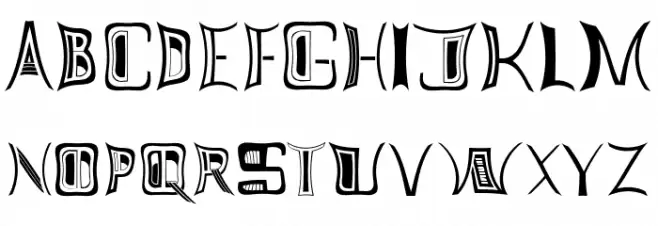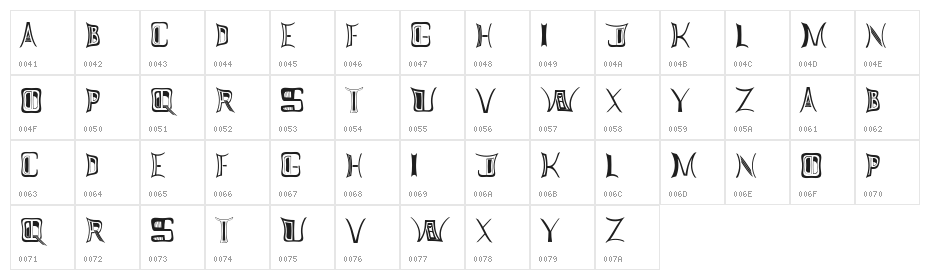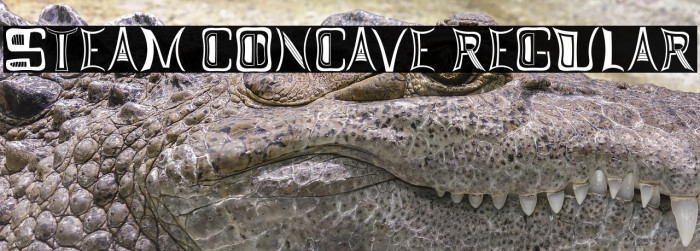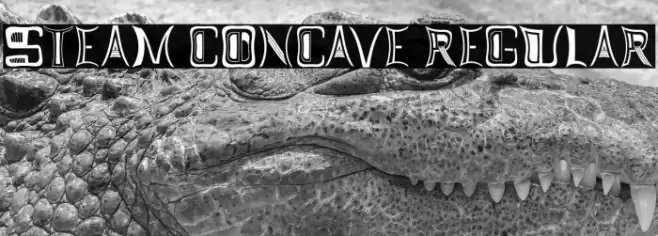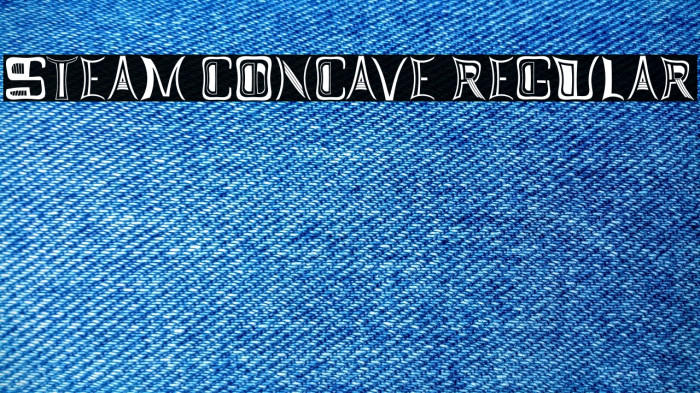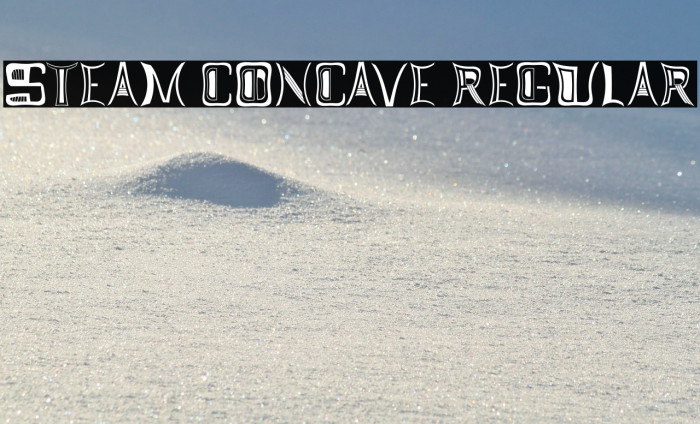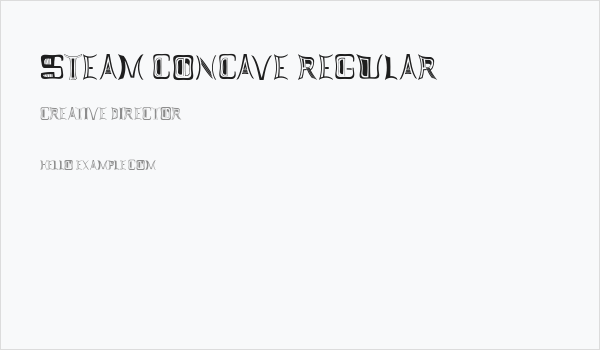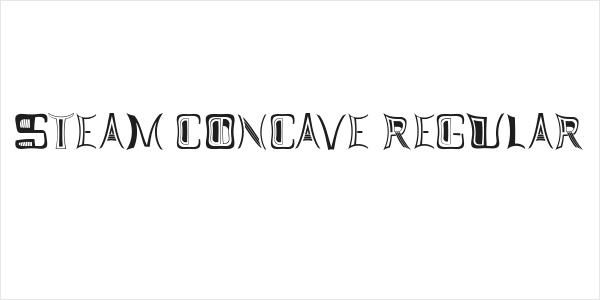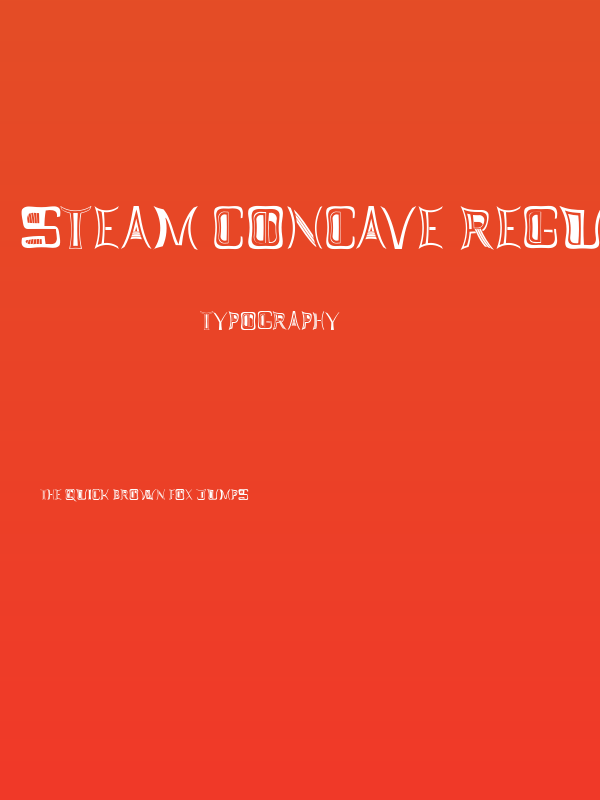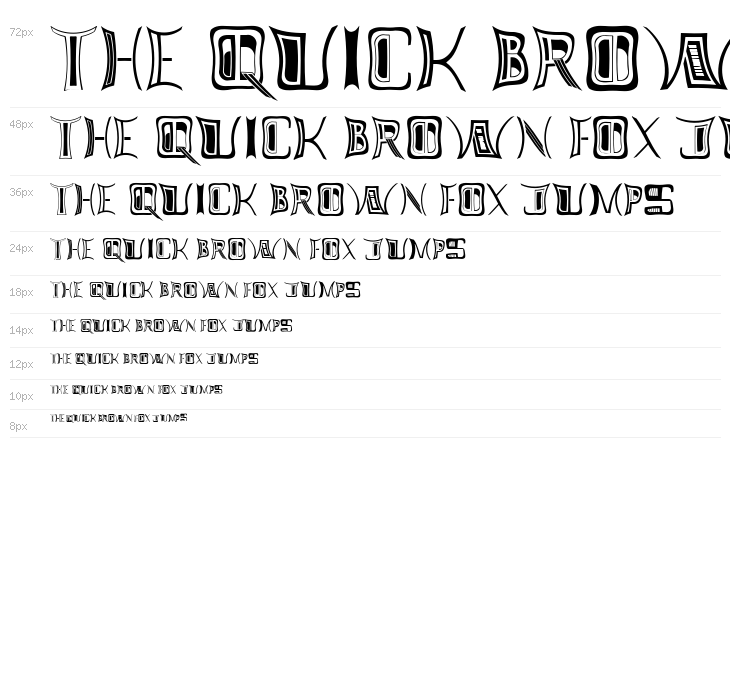
Steam Concave Regular Font
Steam Concave Regular Description
This font features a unique and artistic design with a concave style that gives each character a dynamic and eye-catching appearance. The uppercase letters are bold and have a distinct curvature that creates a sense of movement and fluidity. The lowercase letters maintain this style, offering a cohesive look throughout the typeface. The numbers and special characters are crafted with the same attention to detail, ensuring consistency. The font's playful yet sophisticated design makes it ideal for creative projects that require a touch of elegance and flair.
| Proposed Projects | Ideal for creative projects such as posters, logos, album covers, and branding materials that require a distinctive and artistic touch. |